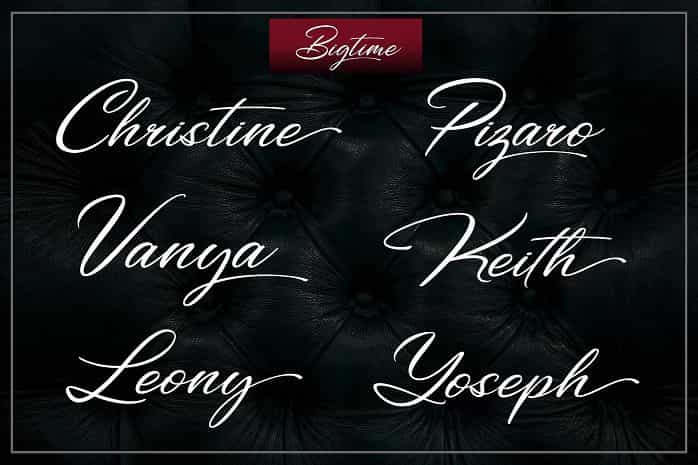
Introducing Bigtime Font. Bigtime Script is with luxurious, natural and modern style. Strong identity will add a lot of value to your work, this is what you need in your branding. Bigtime Font is ideal for branding, wedding invitations, magazines, mugs, business cards, quotes, posters, and more what would be great in your big project.